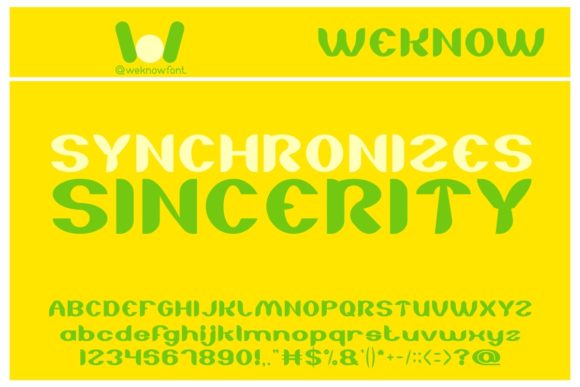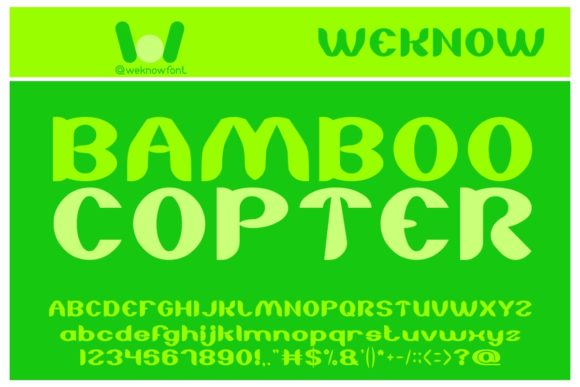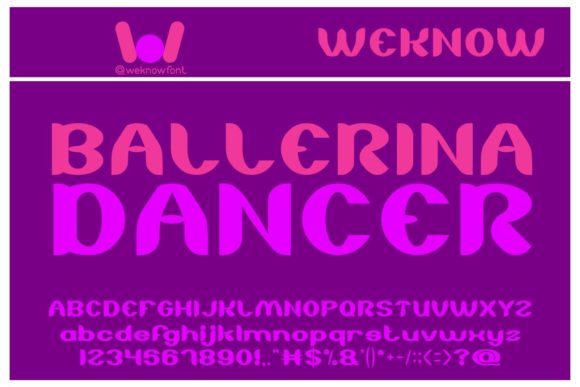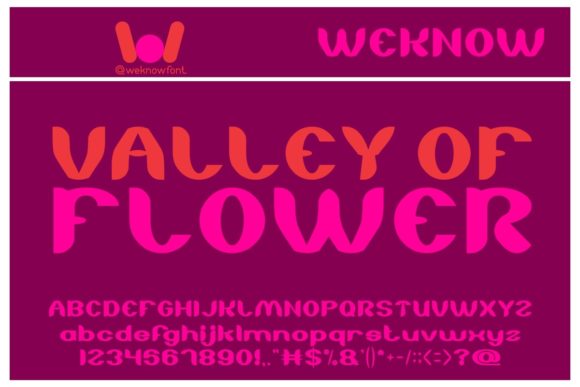
Introducing About You Font: The Ultimate Display Font for Creative Design Projects
Are you tired of using the same old fonts for your design projects? Look no further! About You Font is a cool display font that is perfect for headlines, brand identity designs, apparel industry, posters, music titles, movies, games, and any of your creative design projects. In this article, we’ll dive into the features and benefits of About You Font, and explore how it can elevate your designs to the next level.
What is About You Font?
About You Font is a modern display font that is designed to make a statement. Its unique and stylish lettering makes it perfect for grabbing attention and adding a touch of personality to your designs. The font is highly versatile and can be used for a wide range of projects, from branding and advertising to packaging and digital media.
Key Features of About You Font
- Unique and Stylish Lettering: About You Font features a distinctive and eye-catching lettering style that sets it apart from other fonts.
- Highly Versatile: The font is suitable for a wide range of projects, including headlines, brand identity designs, apparel industry, posters, music titles, movies, games, and more.
- Easily Readable: Despite its stylized lettering, About You Font is surprisingly easy to read, making it perfect for use in body text as well as headlines.
- Customizable: The font comes with a range of customization options, allowing you to tailor it to your specific design needs.
Benefits of Using About You Font
So why should you choose About You Font for your design projects? Here are just a few benefits of using this amazing font:
- Adds Personality to Your Designs: About You Font is a great way to add a touch of personality and style to your designs, setting them apart from the competition.
- Perfect for Branding and Advertising: The font’s unique and stylish lettering makes it perfect for use in branding and advertising campaigns.
- Saves Time and Effort: With About You Font, you can create professional-looking designs in no time, saving you time and effort.
- Great for Digital Media: The font is optimized for use in digital media, making it perfect for use in websites, social media graphics, and more.
How to Use About You Font in Your Designs
Using About You Font in your designs is easy! Here are a few tips to get you started:
- Pair it with Other Fonts: About You Font pairs well with a range of other fonts, so don’t be afraid to experiment and find the perfect combination for your design.
- Use it for Headlines and Titles: The font is perfect for use in headlines and titles, where its unique and stylish lettering can really make an impact.
- Experiment with Different Colors and Textures: About You Font looks great in a range of different colors and textures, so don’t be afraid to get creative and try out different effects.
In conclusion, About You Font is a cool display font that is perfect for designers and crafters looking to add a touch of personality and style to their designs. With its unique and stylish lettering, high versatility, and ease of use, it’s a great choice for a wide range of projects. Whether you’re working on a branding campaign, creating a poster, or designing a website, About You Font is sure to make a statement.